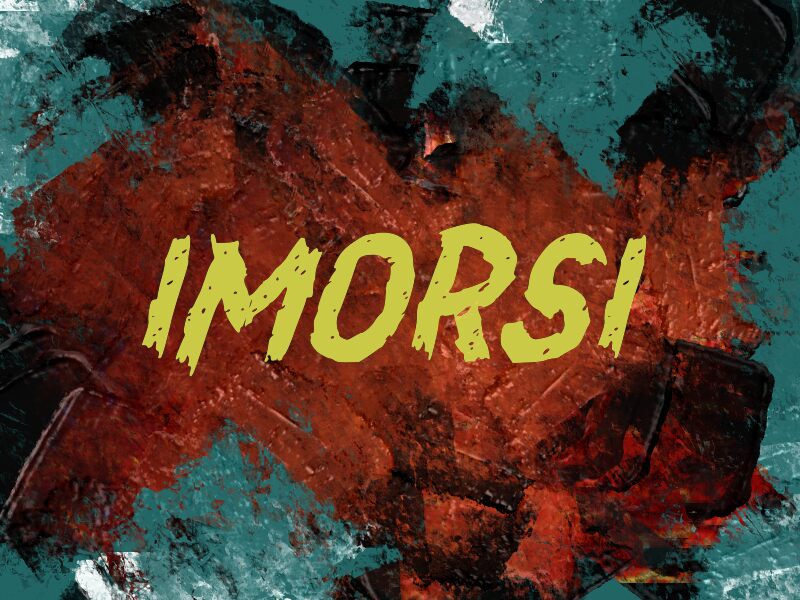
IMORSI
Imorsi font by wep is a free script typeface in which handwriting meets a modern aesthetic. It uses thick curvy characters with details on the edges that produce grungy and distressed textures. The energetic writing demands attention and adds an expressive vibe to designs, that’ll look enthusiastic in this bold choice of style.